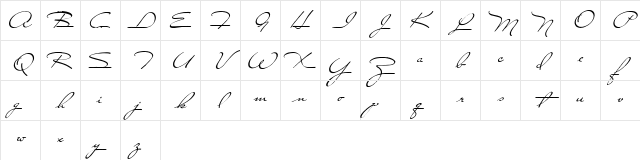
Close to You Regular
Foundry: Paulo W
Design Context for Close to You
Close to You is a composed and adaptable typeface that performs quietly and consistently across a wide range of design contexts.